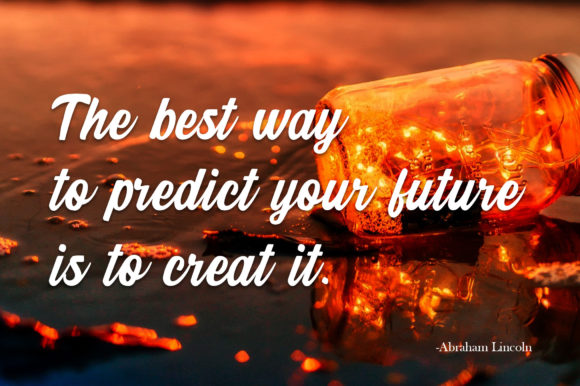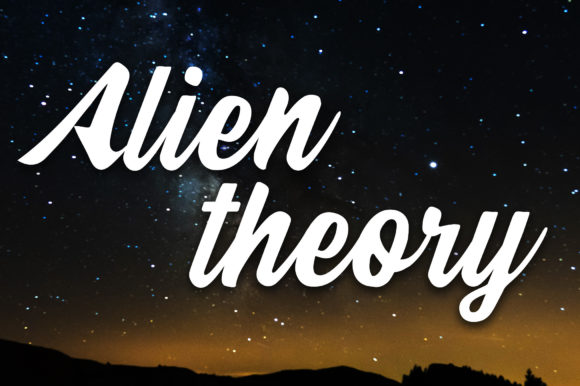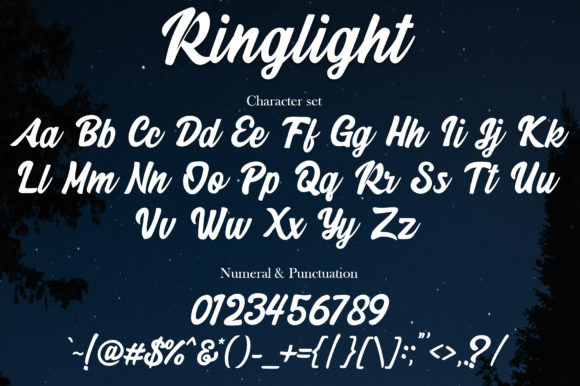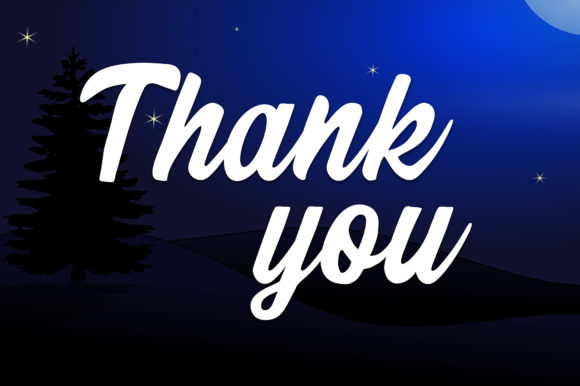
Introduction to Ringlight Font
As a designer, there’s nothing quite like the thrill of bringing a creative project to life. The rush of ideas, the experimentation with colors and textures, and the satisfaction of watching your design take shape. But sometimes, it’s the smallest details that can make all the difference. For instance, the perfect font can elevate your entire design and give it that extra oomph. And that’s exactly where the Ringlight Font comes in.
With its gorgeous, cursive, and thick-lettered handwritten style, the Ringlight Font is the perfect addition to any design project. Whether you’re working on a high-quality logo, a creative brochure, or even a simple social media post, this font is sure to add a stylish touch that will make your design stand out.
But what really sets the Ringlight Font apart is its versatility. With a transparent background and a wide range of customization options, you can use it to create anything from eye-catching headlines to beautiful logotype designs. And the best part? It’s available for free download, making it an invaluable design resource for designers of all levels.
Key Features of Ringlight Font
- High-quality font design with a transparent background, perfect for creative projects that require a touch of elegance.
- Unique characteristics include a modern and minimalist design aesthetic, making it perfect for creative projects that require a clean and simple look.
Honest Review: Ringlight Font
I recently stumbled upon the Ringlight Font and was excited to dive in and see what it had to offer. As a designer, I’m always on the lookout for high-quality fonts to elevate my creative projects. This font did not disappoint.
One of the standout features of the Ringlight Font is its unique, futuristic aesthetic. It’s perfect for any project that requires a touch of innovation and style. I particularly loved the transparent background, which allowed me to layer it over other design elements with ease.
- High-quality, vector-based design
- Perfect for creative projects, from futuristic concept art to modern web design
✨ The Ringlight Font works well in a variety of contexts, from digital design to print materials. Its versatility and unique style make it a valuable addition to any designer’s toolkit.
⚠️ One limitation I noticed was the font’s limited character set. While it’s perfect for short phrases and headlines, it may not be the best choice for longer blocks of text.
Overall, I was impressed by the Ringlight Font’s unique style and versatility. While it may have some limitations, it’s a valuable resource for designers looking to add a touch of innovation to their creative projects.
Tips for Getting the Most Out of Ringlight Font
Use Ringlight Font in combination with other design resources to create a unique and creative project. Experiment with different font sizes, colors, and styles to find the perfect look for your project.
Ringlight Font is commonly used in creative projects such as blog posts, social media graphics, and presentations. It’s a great choice for designers looking for a high quality font with a transparent background.